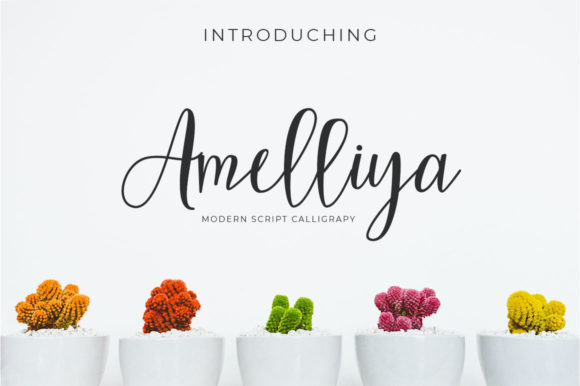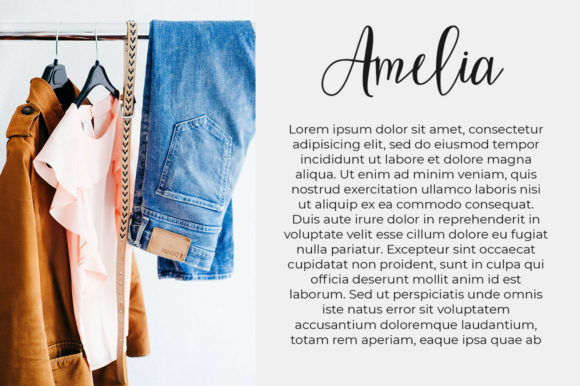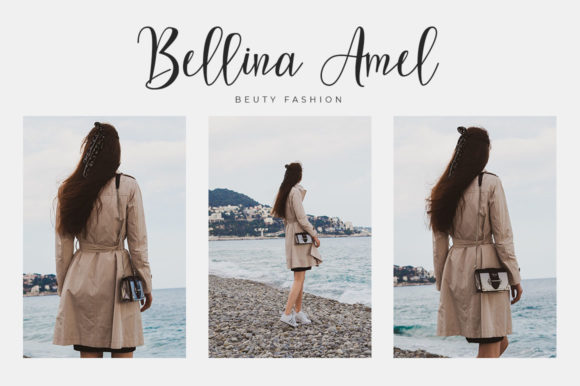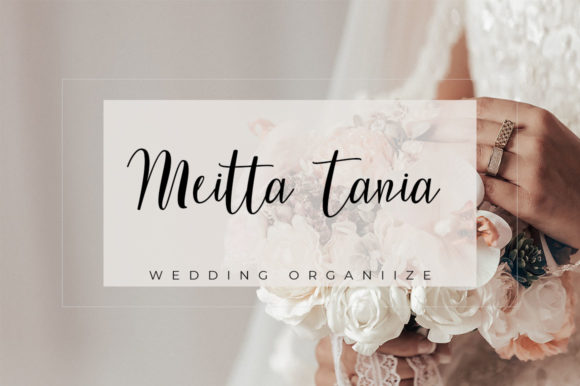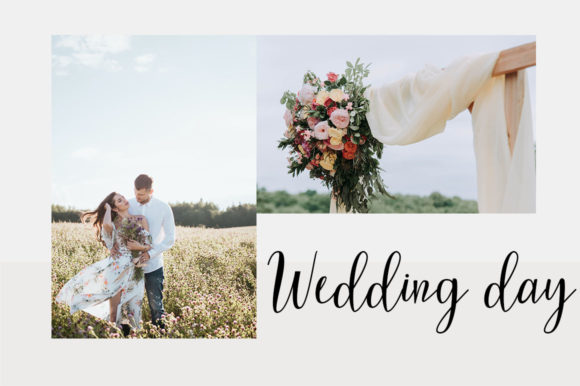
Amelliya Font
About Amelliya Font
Amelliya is a beautiful script font, featuring a nice flow. It looks lovely on a variety of designs requiring a personalized style, such as wedding invitations, thank you cards, weddings, greeting cards, logos and so on.